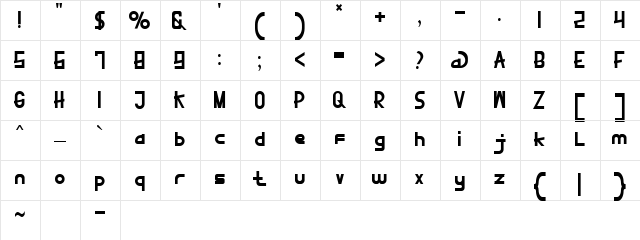
Stonedance Elissta Regular
| Designer | Afif Hidayat Alhabsi |
Design Context for Stonedance Elissta Typeface
Stonedance Elissta offers clean, dependable letterforms without strong stylistic allegiance, making it a practical choice for designers who need flexibility.